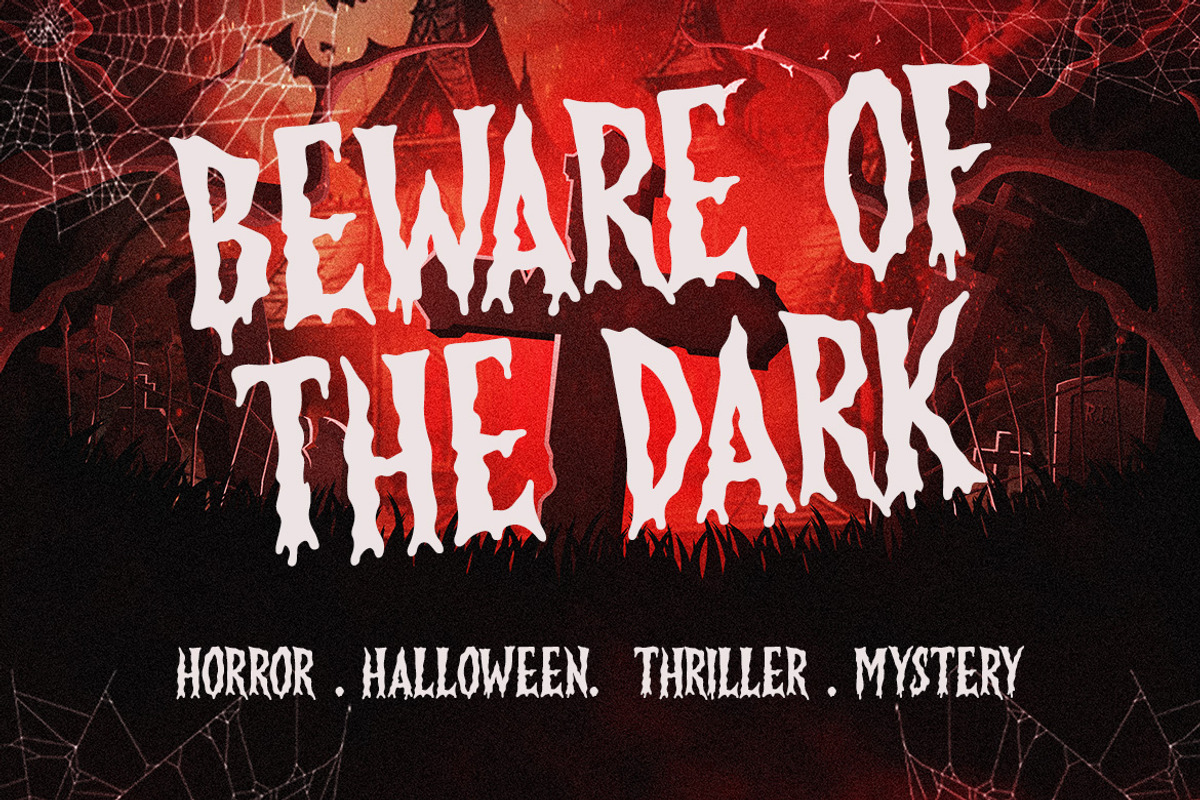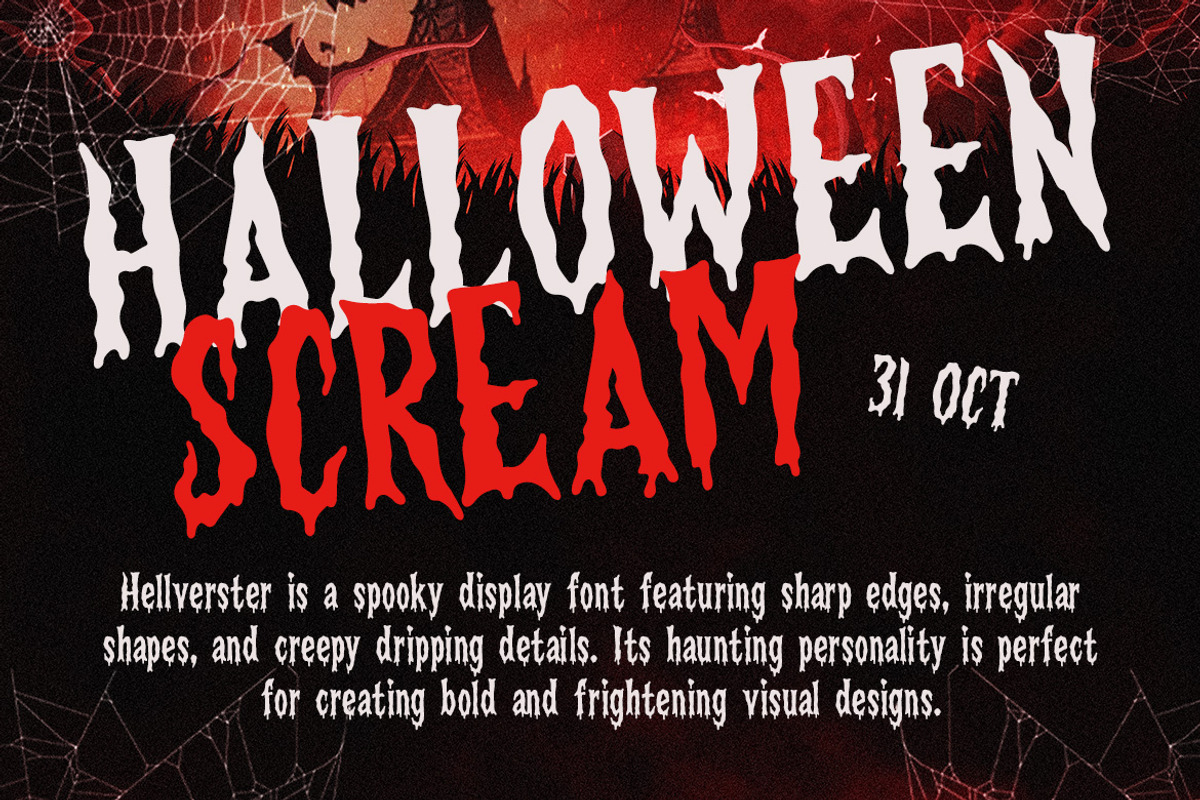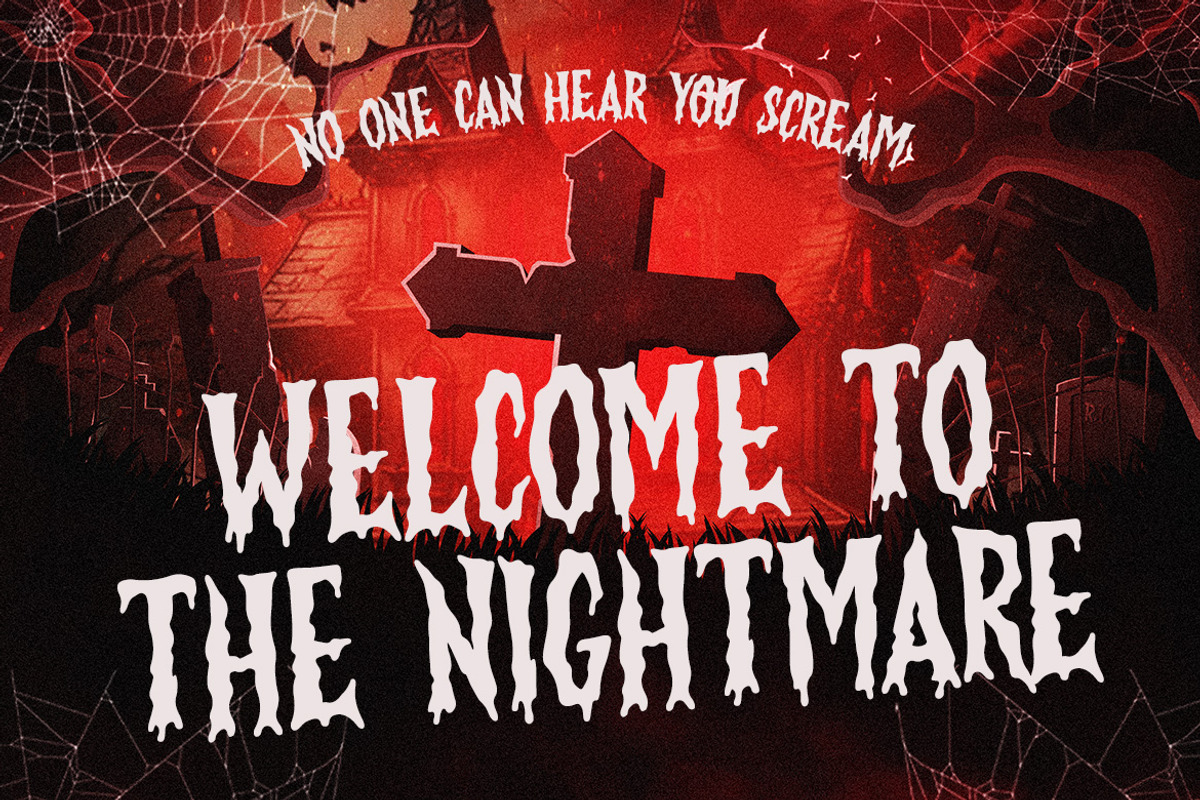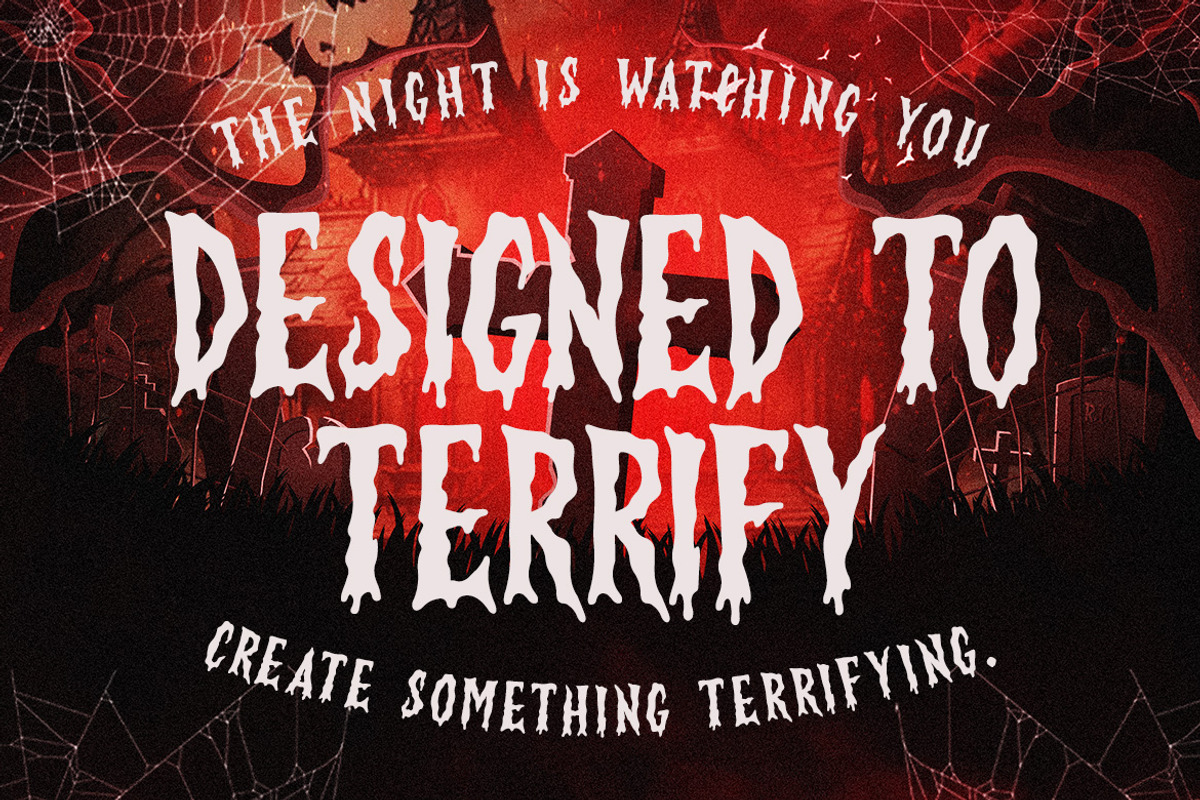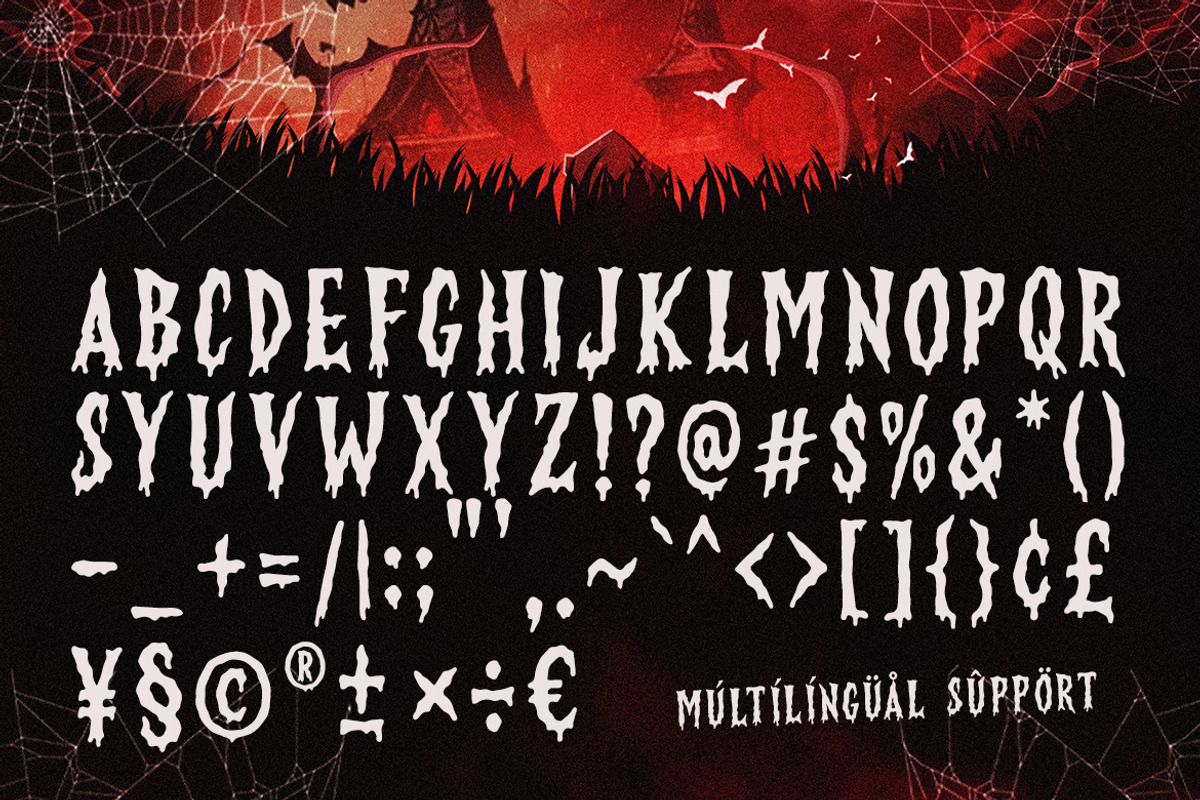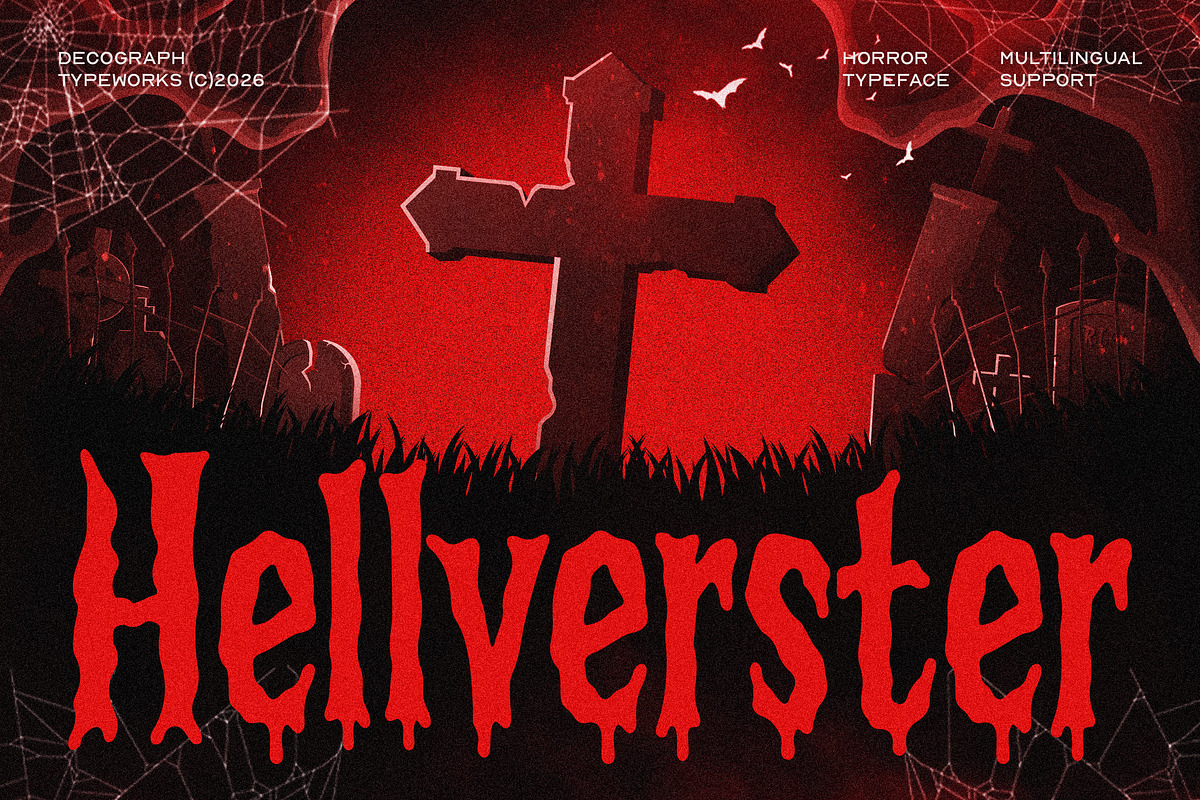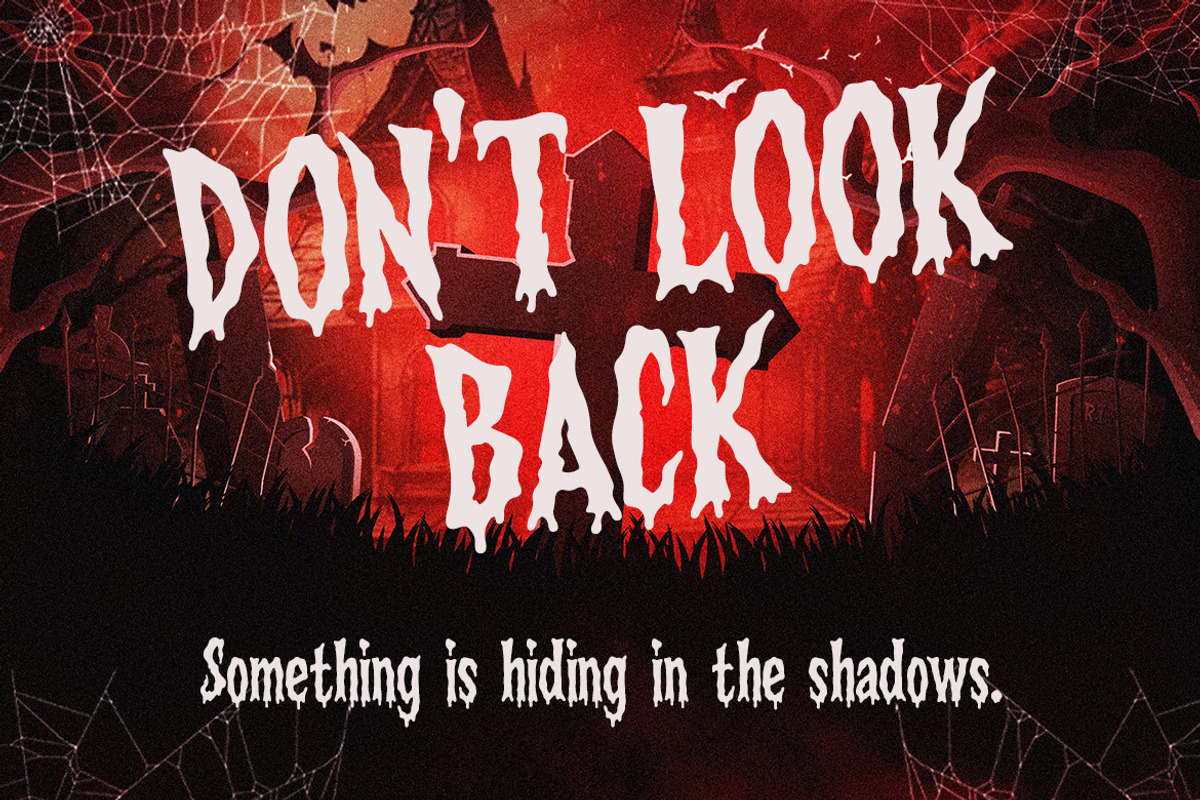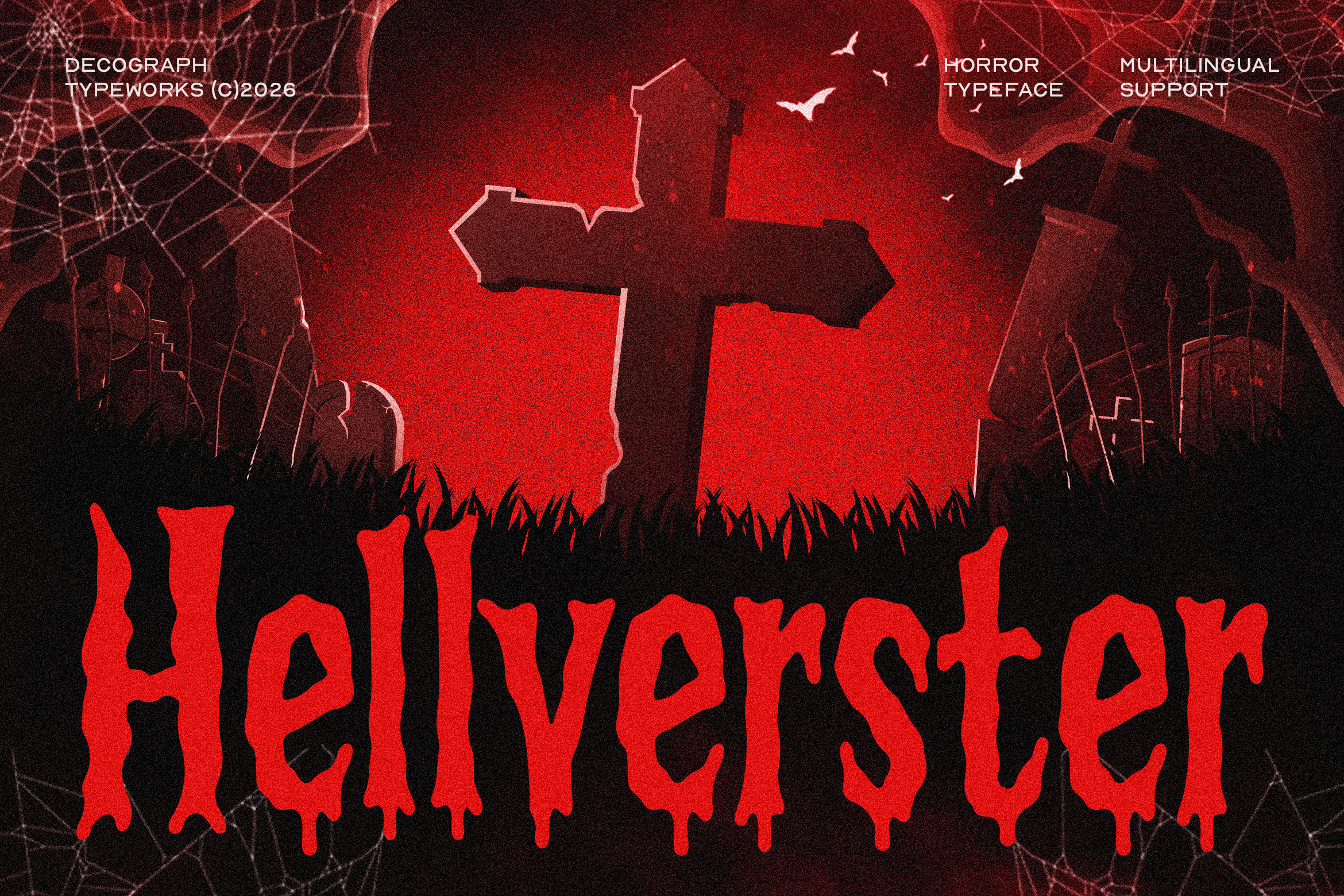
Hellverster – Horror Display Font
Hellverster is a horror display typeface built around irregular letterforms, distorted curves, sharp terminals, and dripping details that create an unmistakably sinister character. Its uneven proportions and organic edges give the typography a handmade, unsettling rhythm, while the elongated forms reinforce its dramatic presence at large sizes. Designed for horror movie titles, Halloween posters, game graphics, book covers, merchandise, packaging, and themed branding, Hellverster delivers a dark visual personality that feels creepy, macabre, theatrical, and aggressively expressive without sacrificing the strong silhouettes needed for attention-grabbing display typography.
Smooth Kerning